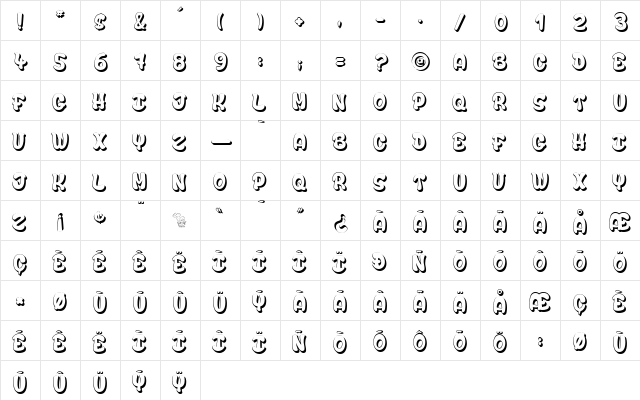
bubble & soap Regular
| Foundry | dcoxy Medina Gregory |
| Designer | dcoxy Medina Gregory |
Design Context for bubble & soap Typeface
bubble & soap has an approachable, lighthearted character — its loose, expressive forms are well-suited to children's content, casual branding, and fun-first design.
Great for children's books, toy packaging, family event branding, and casual consumer-facing design.
Font Pairing: Pairs well with a rounded or humanist sans for body copy, maintaining the friendly tone without relying on bubble & soap to carry extended reading.
Pro Tip: Avoid using bubble & soap for long passages of text — it works best for headlines, labels, and short calls to action.